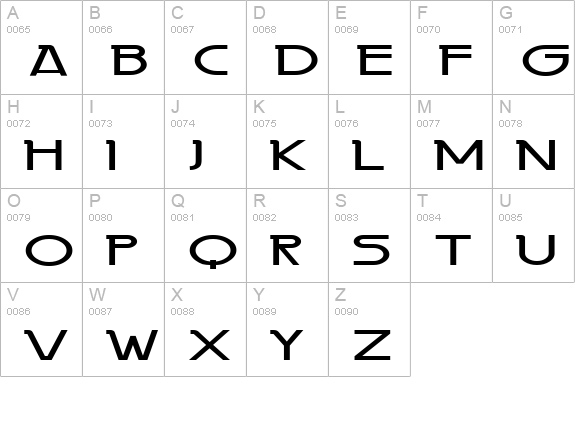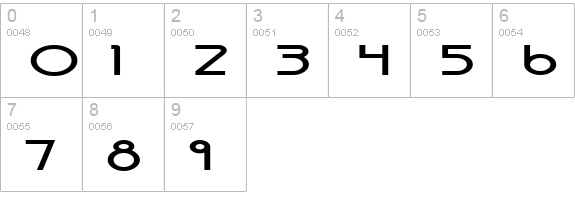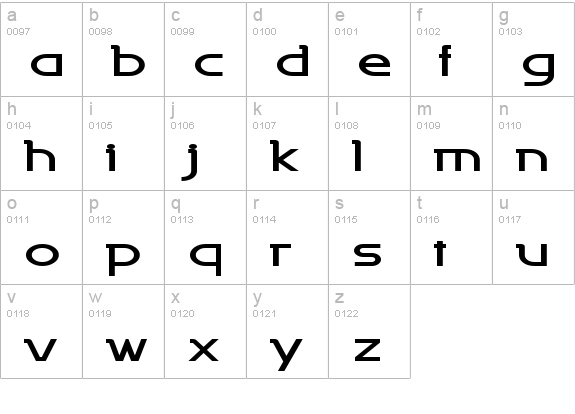
Persia Extended Bold is a strong, high-contrast, extended-width variant in the Persia typeface family \xE2\x80\x94 well suited to headlines, attention-grabbing titles, and strong calls-to-action.
Persia Extended Bold font is a stunning typeface that exudes elegance and sophistication. With its bold and commanding presence, this font is perfect for making a statement in any design project. Whether used for headlines, logos, or branding materials, Persia Extended Bold will captivate viewers and leave a lasting impression. This font features extended characters, allowing for maximum versatility and creativity. Its strong lines and bold strokes make it easily legible, even at smaller sizes. The attention to detail in every letterform showcases the craftsmanship and dedication that went into creating this exceptional typeface. One of the best aspects of Persia Extended Bold font is that it is freely available to download at FontsMarket.com. This means that designers, creatives, and enthusiasts can access this incredible font without any cost. It's a fantastic opportunity to incorporate a high-quality typeface into your projects without any financial burden. With Persia Extended Bold font, you can truly elevate your designs to the next level. Its bold and sophisticated style will add a touch of class and professionalism to any project. Whether you're designing a website, creating promotional materials, or crafting eye-catching graphics, this font will help you make a powerful visual impact. Don't miss the chance to enhance your design toolbox with Persia Extended Bold font. Download it for free at FontsMarket.com and unleash its potential in your next creative endeavor.